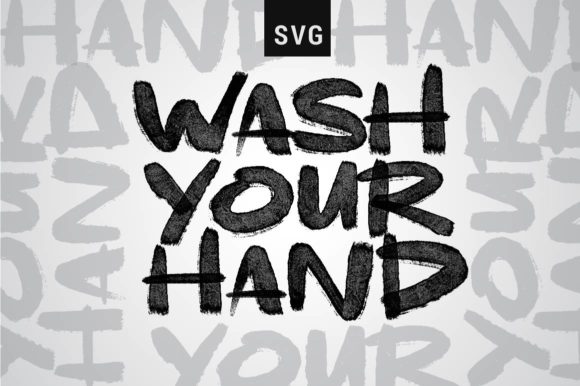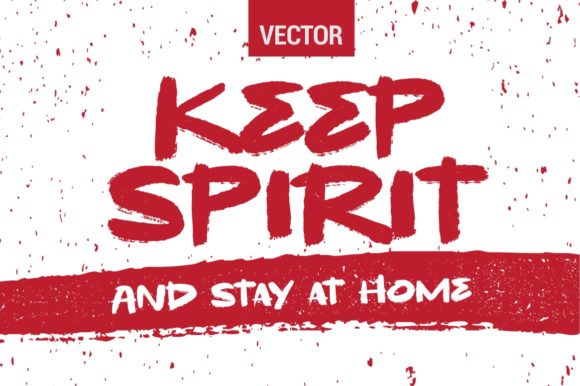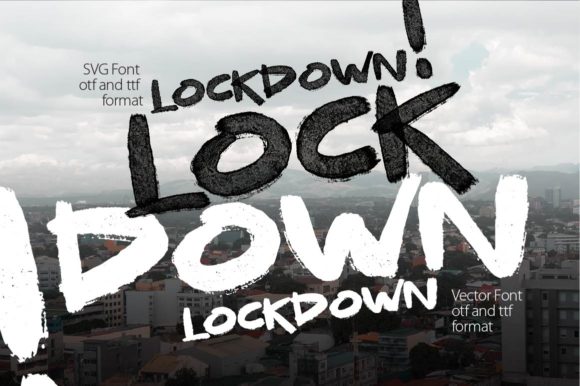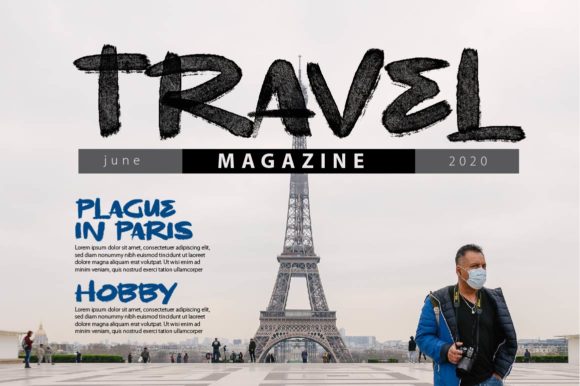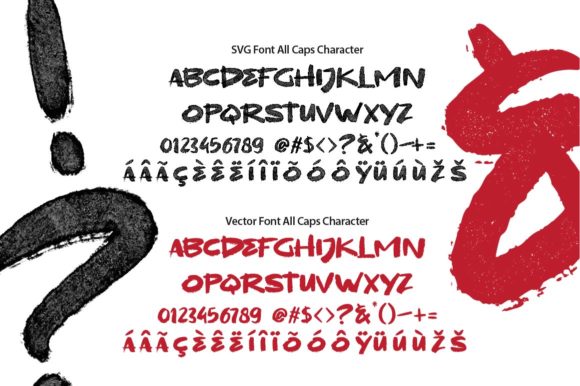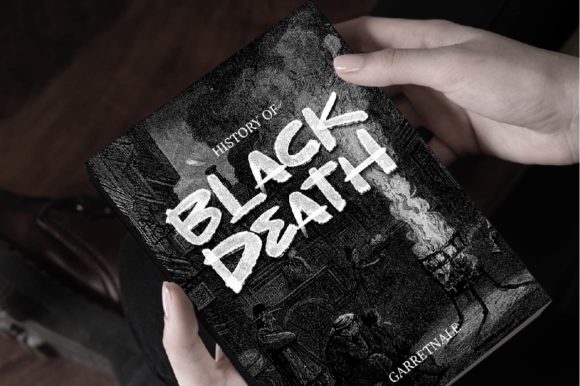
The Birth of a Bold Font: Uncovering the Magic of Blackday Font
Who hasn’t been there – staring at a blank page, feeling uninspired, and searching for that spark that will bring your design to life? For designers, those moments can be the most challenging, but also the most rewarding. It’s in those moments of creative uncertainty that we often stumble upon something truly unique and special.
Meet Blackday Font, a casual and fun display font born from the creative energy of a brush pen. Its playful, handwritten feel is perfect for adding a touch of personality to your designs. Whether you’re working on a project that requires a bold statement or a subtle hint of whimsy, Blackday Font is sure to deliver.
Blackday Font Key Features
- Unique Characteristic: A bold, gothic-inspired font with distressed textures and subtle grunge effects
Designer Review: Blackday Font
Overall, I think the Blackday Font is a solid addition to any designer’s toolkit. ✨ The font’s bold and edgy design makes it perfect for creating attention-grabbing headlines and titles. The font’s versatility also shines through in its various weight options, which allow designers to experiment with different styles and moods.
Here are some of the things I think work well with the Blackday Font:
- ✨ Bold and edgy design that grabs attention
- ✨ Versatile weight options for experimentation
- ✨ Well-suited for headlines, titles, and other emphasis text
- ⚠️ Limited legibility in smaller font sizes
- ⚠️ Can be overwhelming if used excessively
- ⚠️ May not be suitable for body text or large blocks of text
Overall, I think the Blackday Font is a great choice for designers who want to add some edge to their work. With its bold design and versatile weight options, it’s a great addition to any toolkit. However, designers should be mindful of its limitations and use it judiciously to avoid overwhelming their audience.
The Blackday Font is ideal for:
- Creating modern and edgy designs.
- Adding a touch of sophistication to your branding.
- Designing posters, flyers, and brochures.